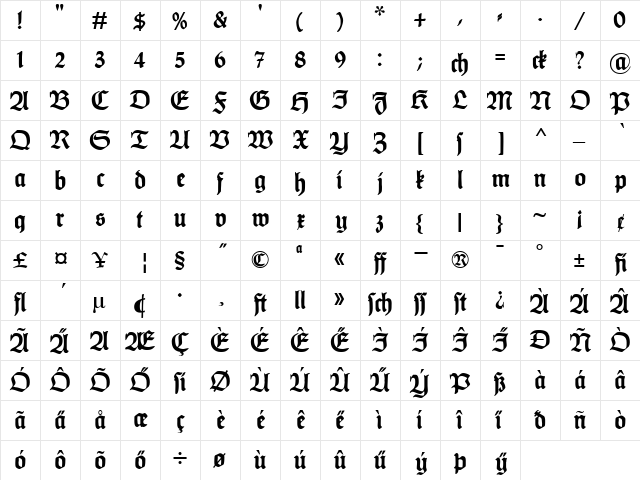
HumboldtFraktur Bold
| Designer | Dieter Steffmann |
Design Context for HumboldtFraktur Typeface
HumboldtFraktur draws on the rich tradition of blackletter calligraphy, with dense, angular strokes that evoke medieval manuscripts and old-world craftsmanship. The heavy weight commands attention and anchors typographic hierarchies.
A natural fit for music packaging, gothic editorial design, and any project that needs historical weight.
Font Pairing: Pair with a clean neutral sans-serif for body copy to let HumboldtFraktur's character lead without overwhelming the composition.
Pro Tip: Reserve HumboldtFraktur for display and logo use — pair it with a clean sans-serif for body copy to prevent the composition from feeling oppressive.